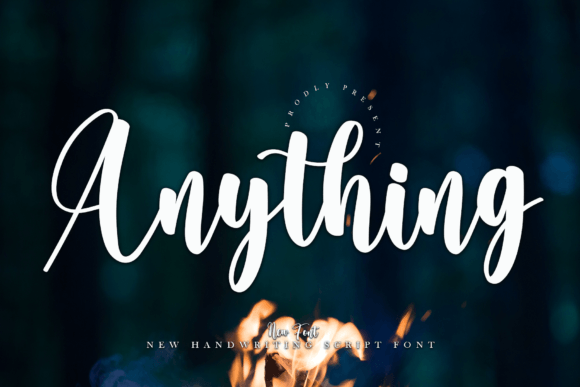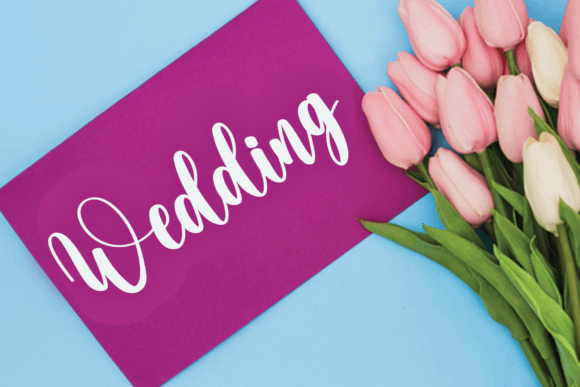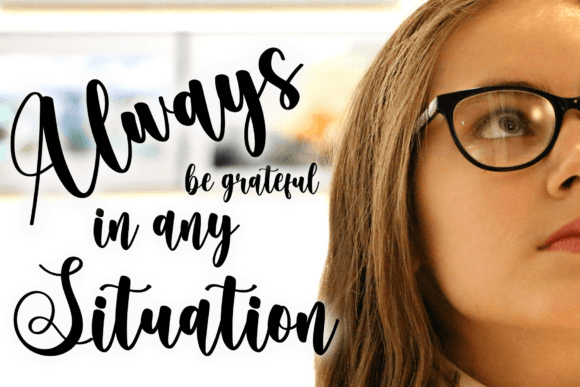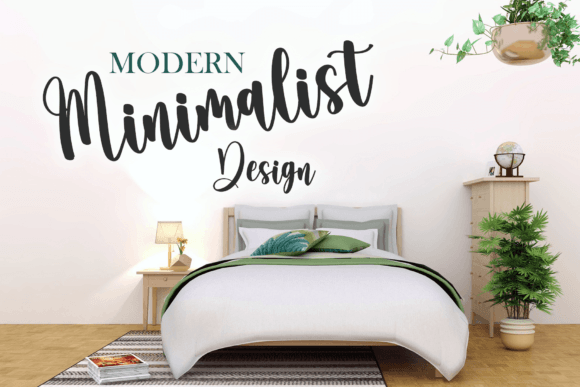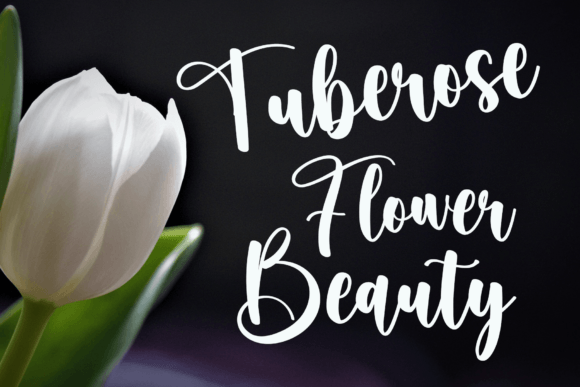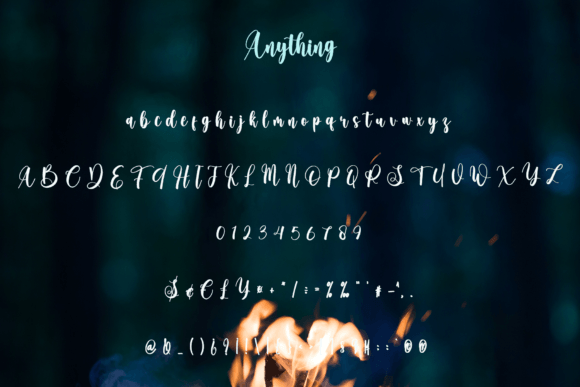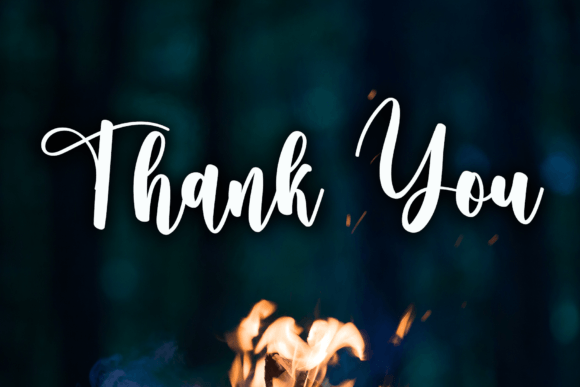
Anything Font
About Anything Font
“Anything” is described as a simple and quirky-looking handwritten font, showcasing a blend of simplicity, quirkiness, and a touch of modern elegance. This font is versatile, making it suitable for various applications such as logos, branding, invitations, stationery, wedding designs, social media posts, and more.
The simplicity of “Anything” contributes to its versatility, allowing it to seamlessly fit into different design contexts. Its quirky elements add a playful and unique touch, making it a suitable choice for projects that call for a bit of personality and creativity.
Whether you’re creating a brand identity, designing wedding materials, or crafting engaging social media posts, “Anything” is crafted to bring a classy and modern look to your designs. Its handwritten aesthetic adds a touch of authenticity and warmth, making your creations visually appealing and approachable.
In summary, “Anything” is a font that combines simplicity with a quirky charm, offering a versatile and modern solution for a range of design projects. Whether applied to commercial branding or personal creative endeavors, this font provides a unique and stylish option to enhance the visual appeal of your work.